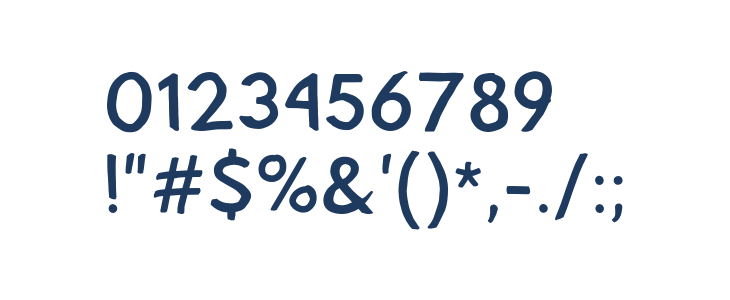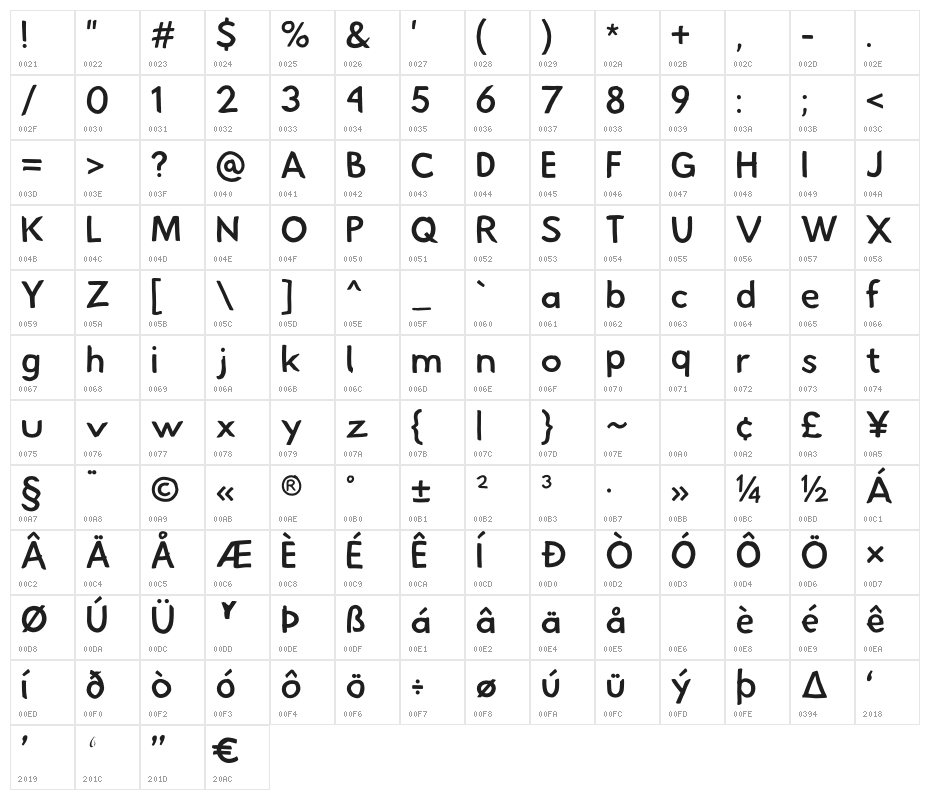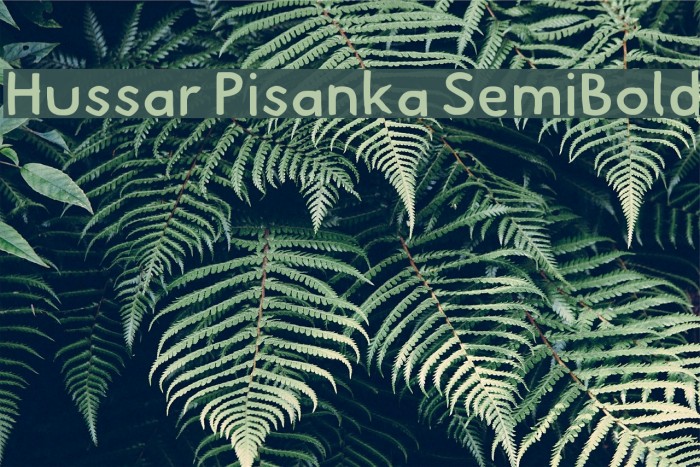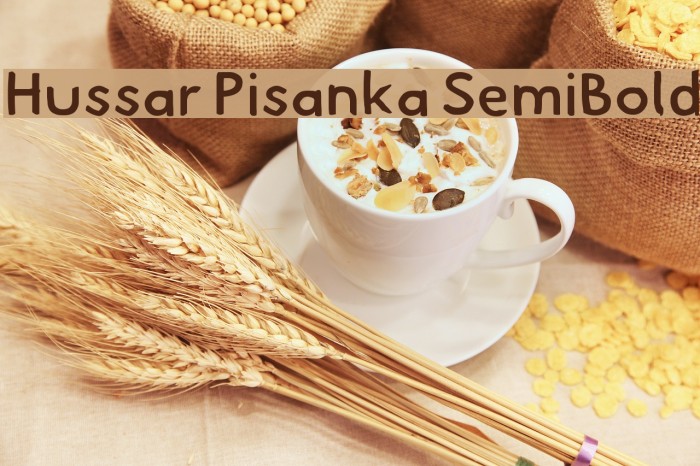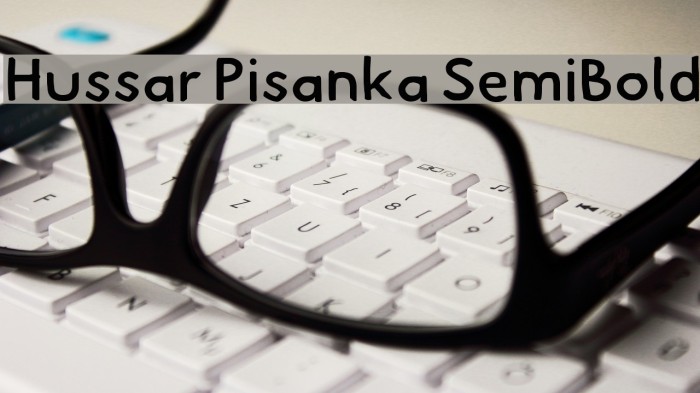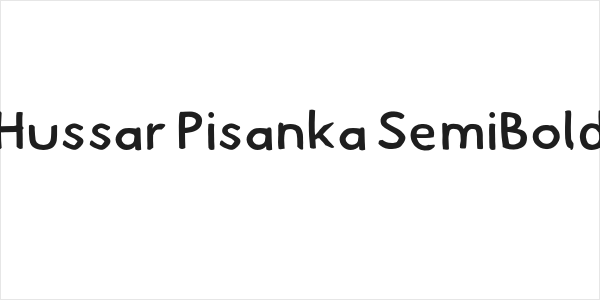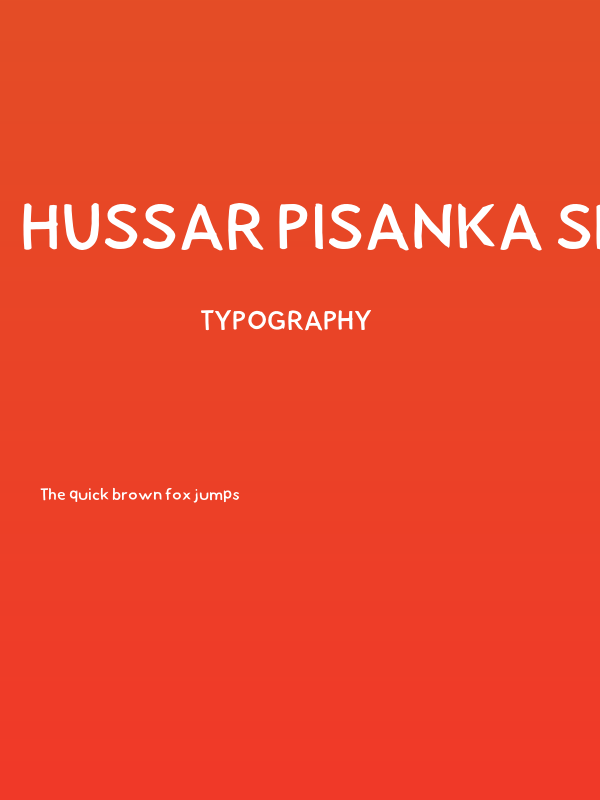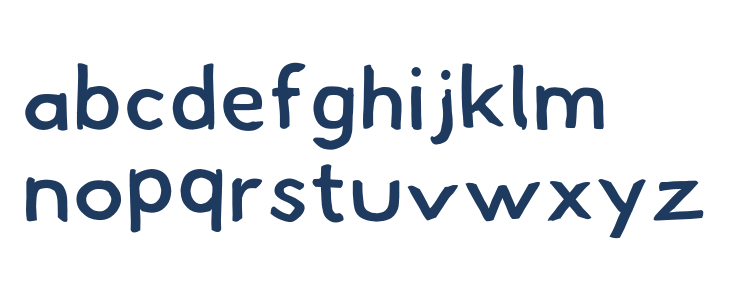
Hussar Pisanka SemiBold Font
Hussar Pisanka SemiBold Description
This font features a playful and whimsical design with rounded edges and a hand-drawn aesthetic. The characters exhibit a consistent stroke width, giving it a uniform appearance while maintaining a casual and friendly vibe. The uppercase and lowercase letters are well-balanced, with a slight tilt that adds to its informal charm. The numerals and special characters are designed to match the overall style, making it versatile for various uses. Its semi-bold weight ensures readability while retaining its unique character.
| Overall Style | Playful, Casual |
| Proposed Projects | Ideal for children's books, playful branding, greeting cards, and creative posters. |